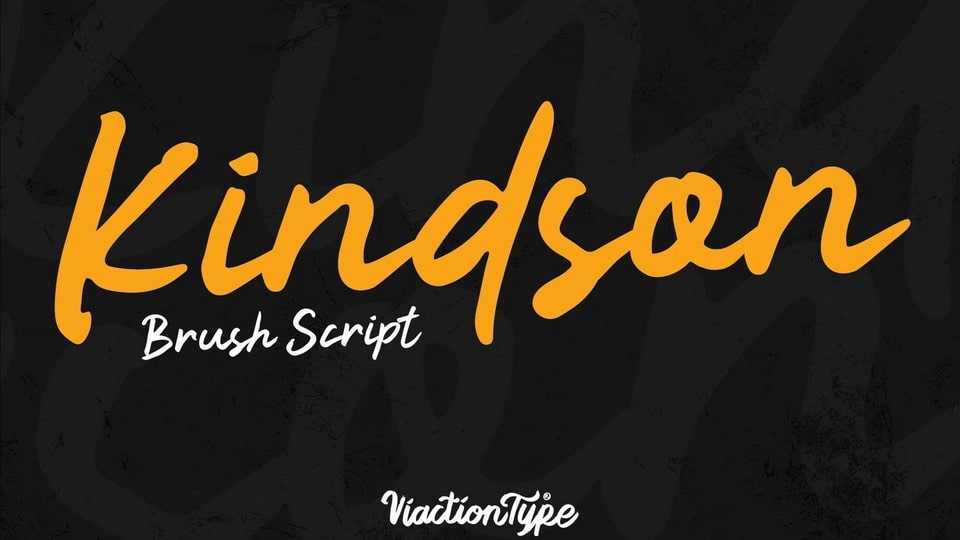
Download Kindson font, a brush script typeface with a strong handwriting style. Kindson fonts are perfect for various purposes such as boutique brands, photography, magazine, quote, business cards, logos, poster.
Designer: Viaction Type Co